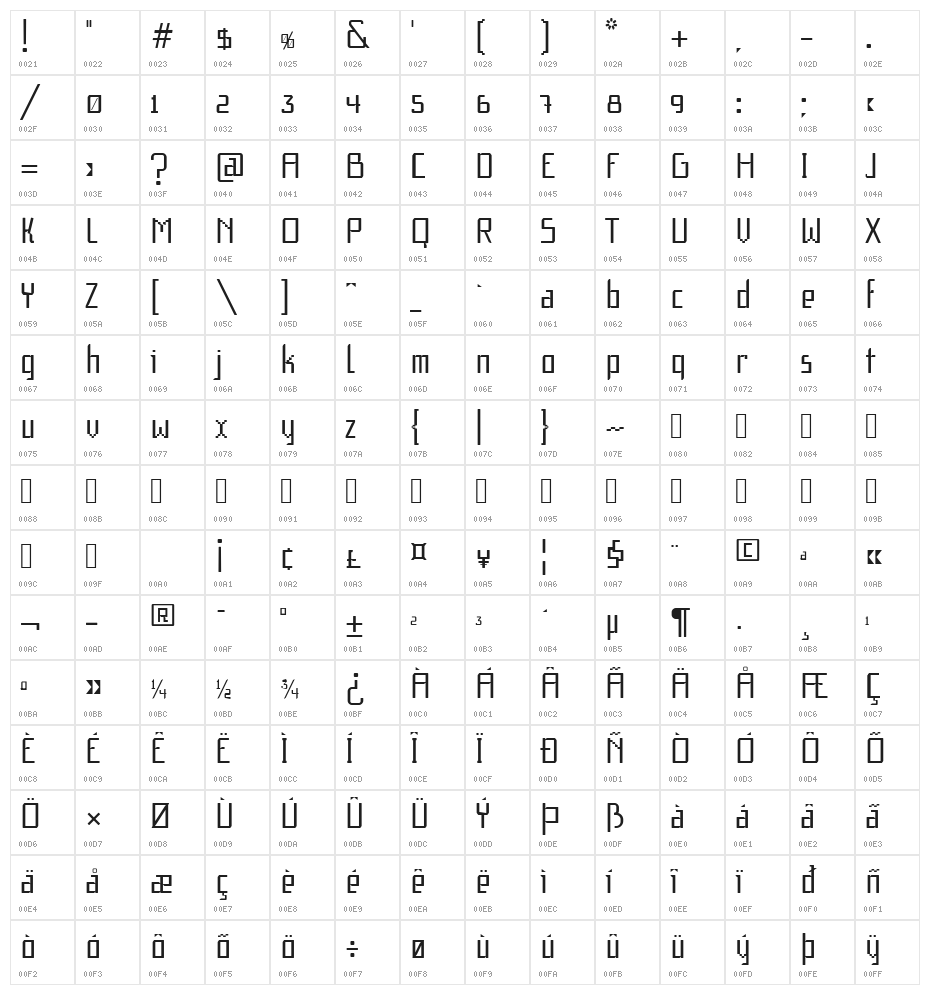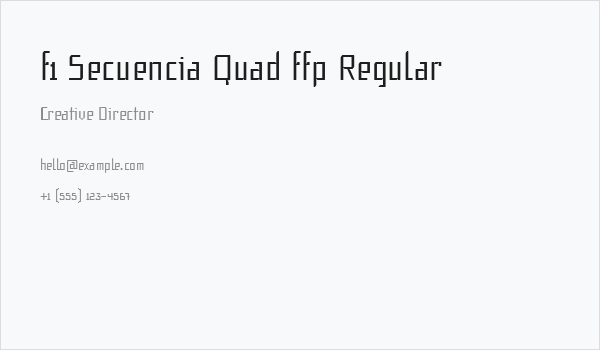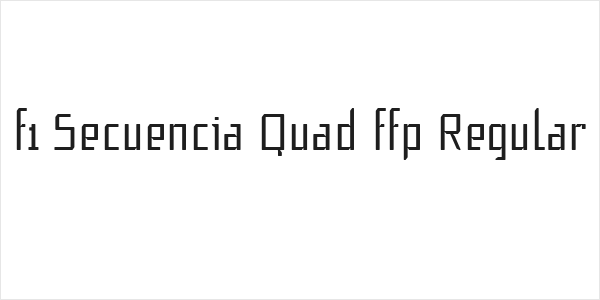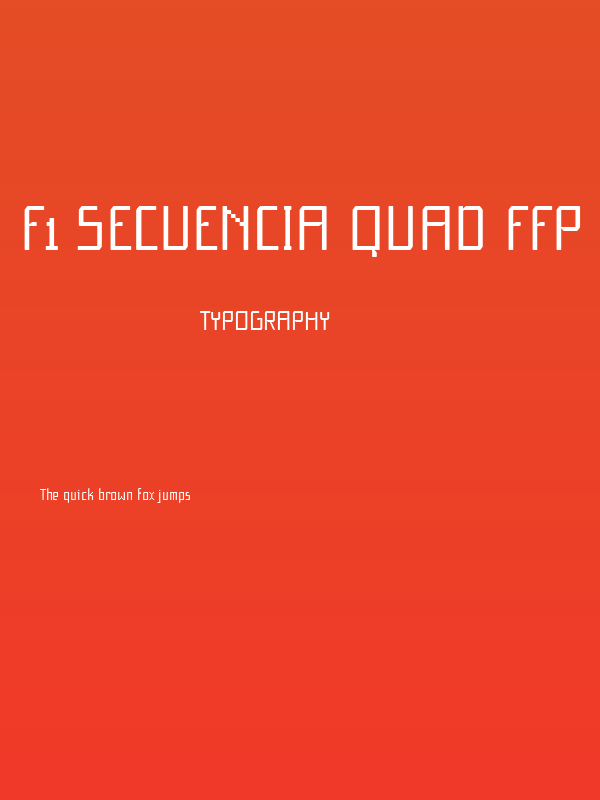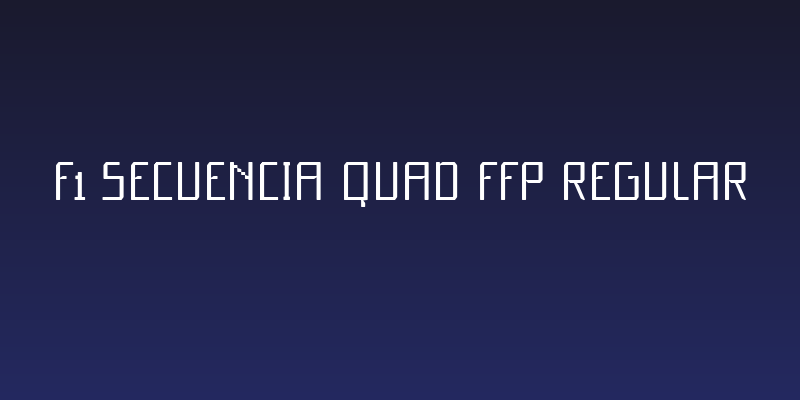
f1 Secuencia Quad ffp Regular Font
f1 Secuencia Quad ffp Regular Description
This font features a geometric and modern design with a distinct blocky appearance. Each character is constructed with straight lines and sharp angles, giving it a digital or futuristic feel. The uppercase and lowercase letters maintain a consistent height, contributing to a uniform and structured look. The numerals and special characters follow the same design principles, ensuring cohesion across all elements. The font's simplicity and clarity make it highly legible, even at smaller sizes, while its unique style adds a touch of modernity and innovation.
| Use Case | Headlines, Logos, Digital interfaces |
| Proposed Projects | Ideal for tech-related branding, digital interfaces, video game design, and futuristic-themed projects. |